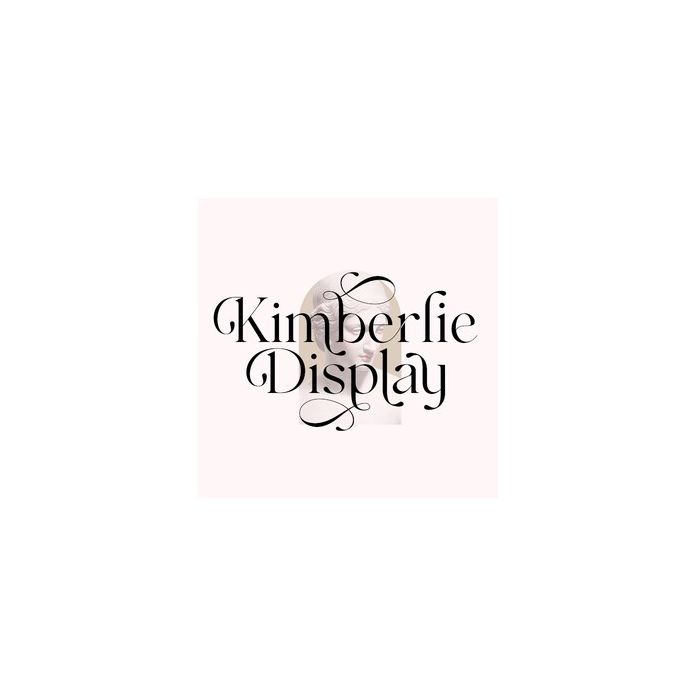
Kimberlie is a distinct and elegant serif font. It is PUA encoded which means you can access all of the amazing glyphs and ligatures with ease!
Total glyph count: 1040